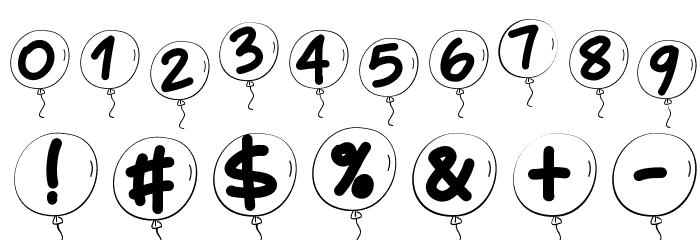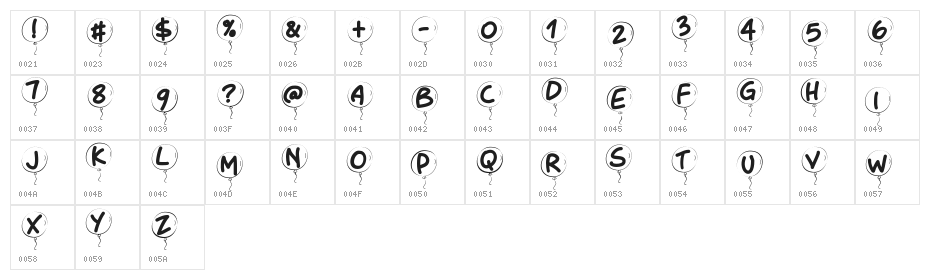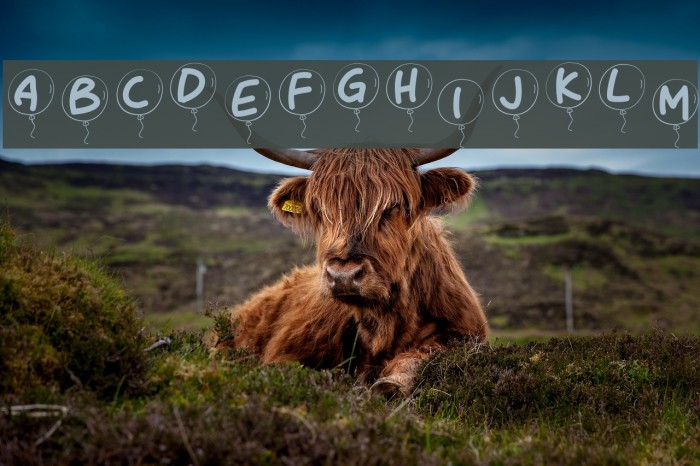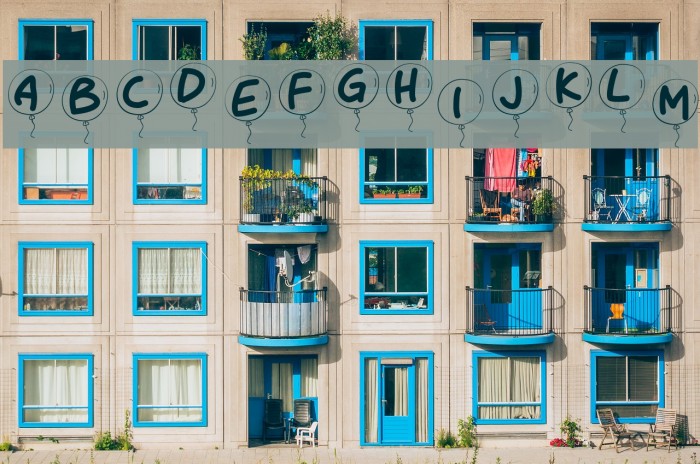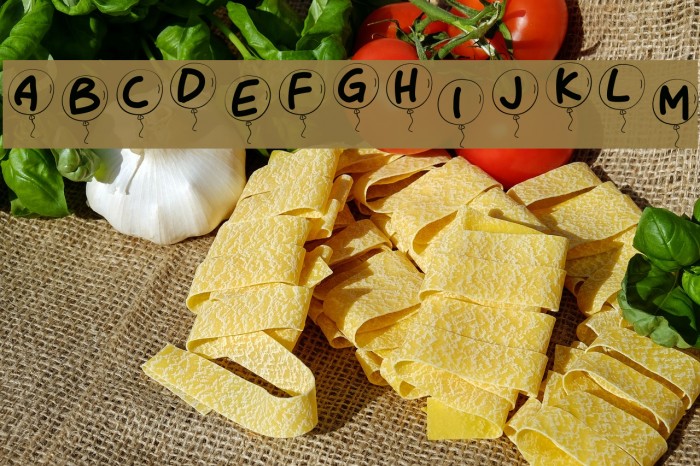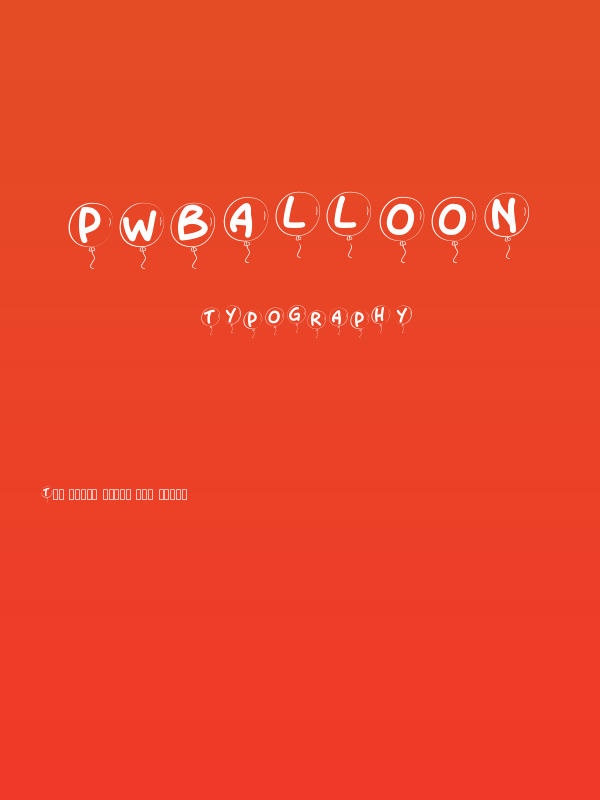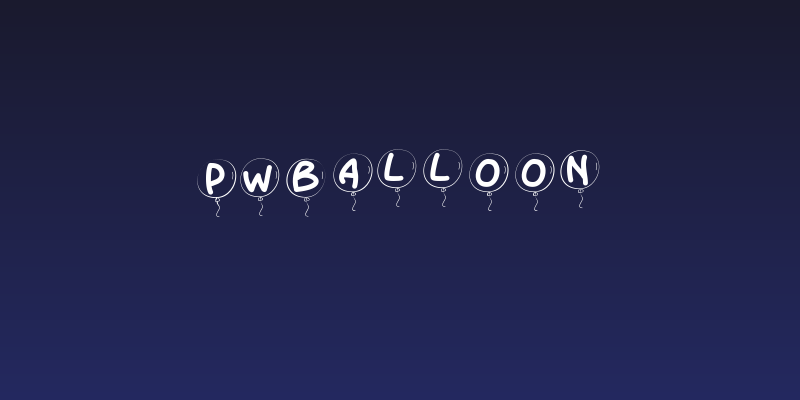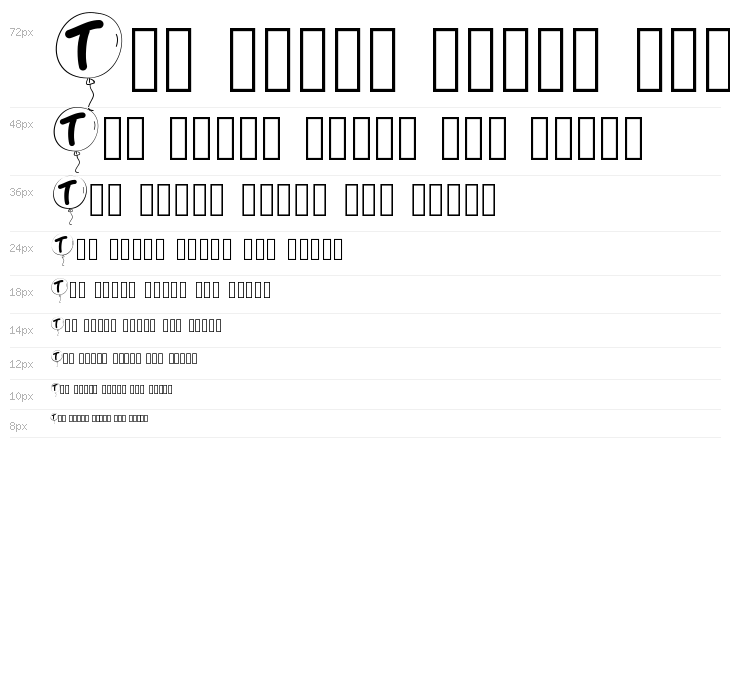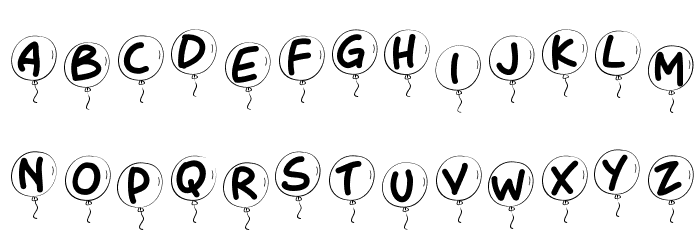
PWBalloon Font
PWBalloon Description
This playful and whimsical font features characters enclosed within balloon shapes, giving it a festive and lighthearted appearance. Each letter and number is centered within a circular balloon, complete with a small string at the bottom, enhancing the celebratory theme. The characters are bold and rounded, with a hand-drawn feel that adds to the font's charm. The overall design is consistent across uppercase, lowercase, numbers, and special characters, maintaining a cohesive look. This font is perfect for projects that require a fun and engaging style, such as children's party invitations, playful branding, or festive event materials.
| Proposed Projects | Ideal for children's party invitations, playful branding, festive event materials, and any project needing a fun, engaging style. |